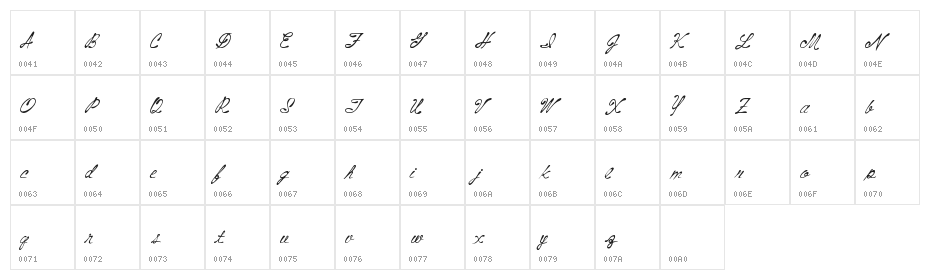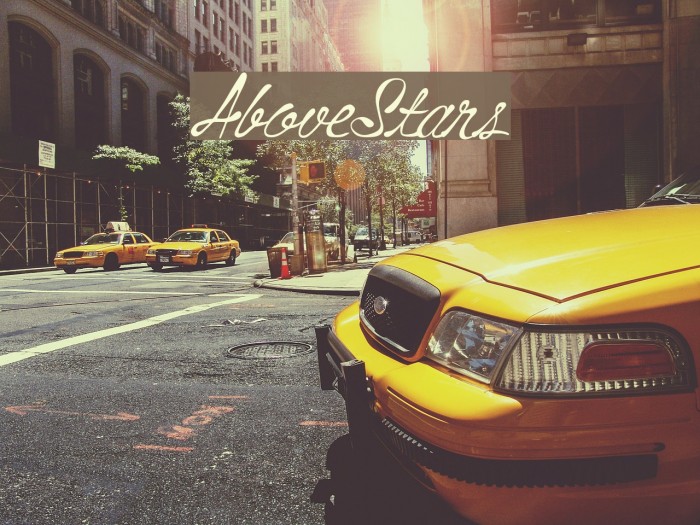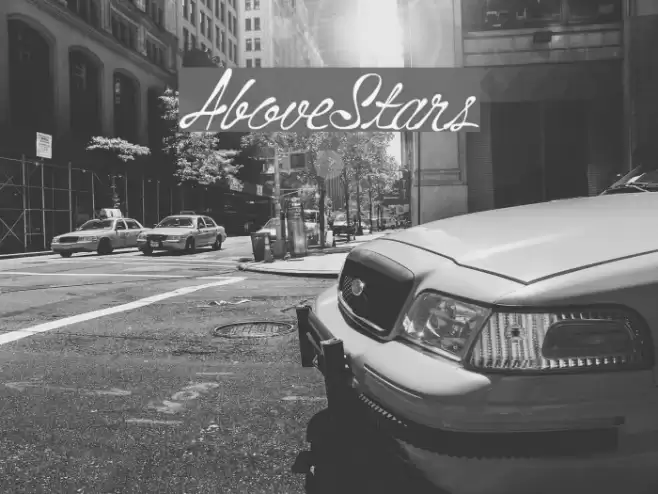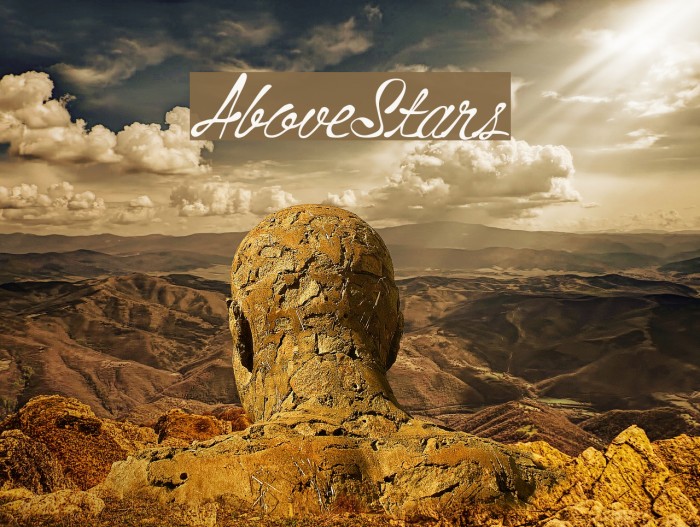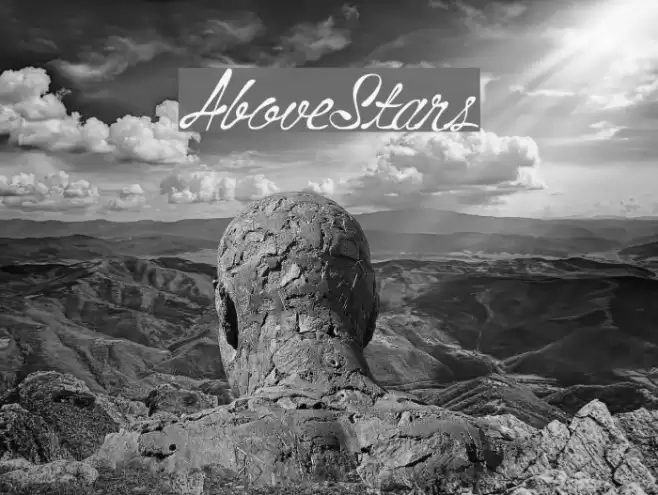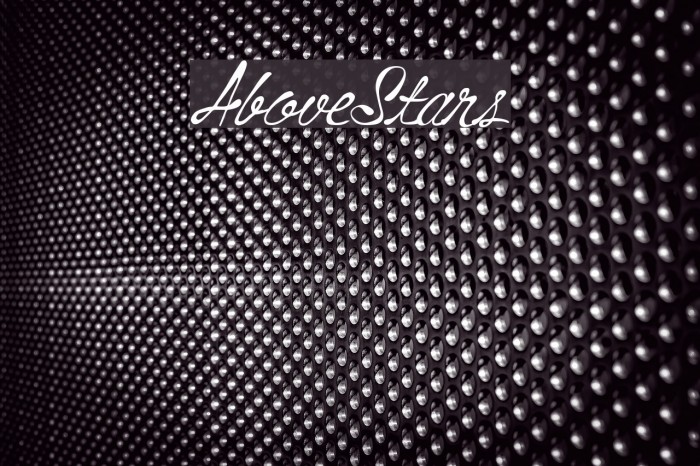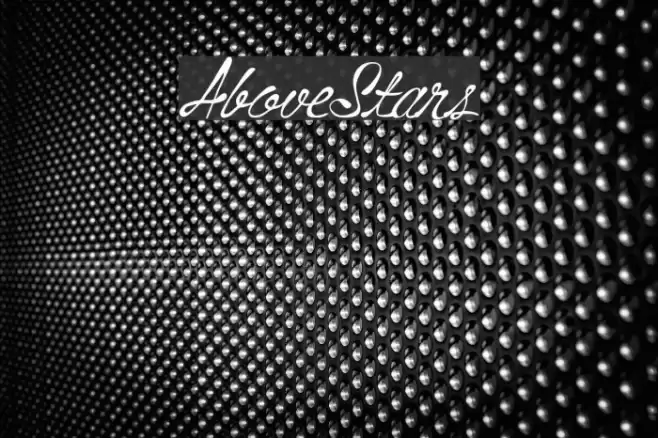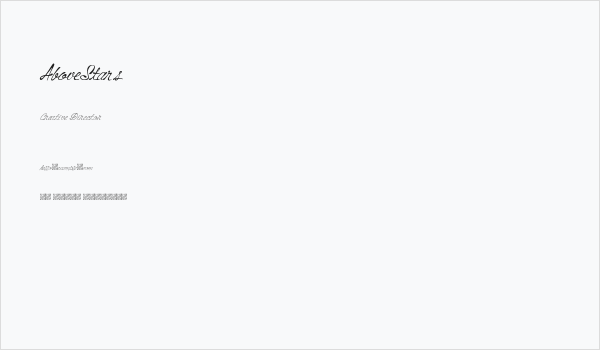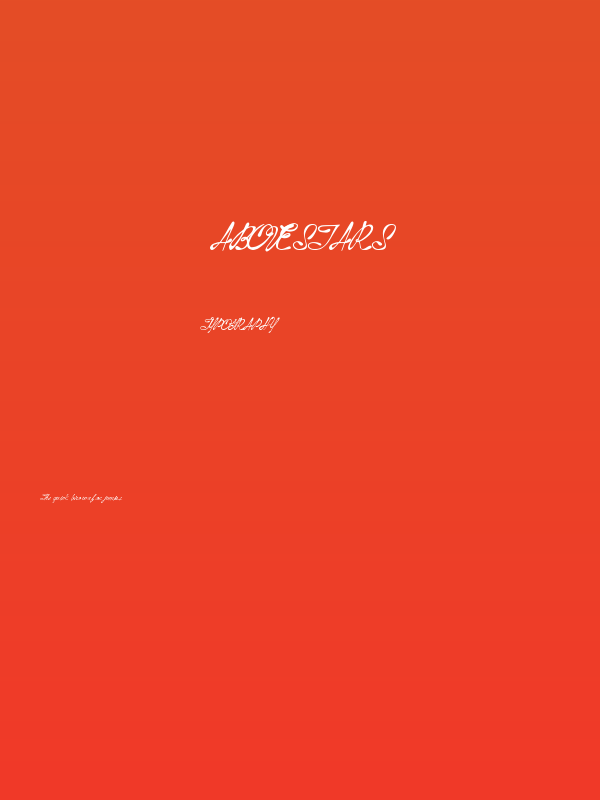
AboveStars Font
AboveStars Description
This elegant script font features a flowing, cursive style with intricate loops and swashes, giving it a sophisticated and artistic appearance. The uppercase letters are ornate and slightly larger than the lowercase, which are more delicate and connected, creating a seamless flow. The characters are slightly slanted, enhancing the handwritten feel. The font maintains a consistent stroke width, offering a balanced and harmonious look. The special characters are designed to match the overall aesthetic, making it suitable for decorative purposes.
| Overall Style | Elegant, Artistic |
| Proposed Projects | Ideal for wedding invitations, elegant branding, personal stationery, and artistic projects. |